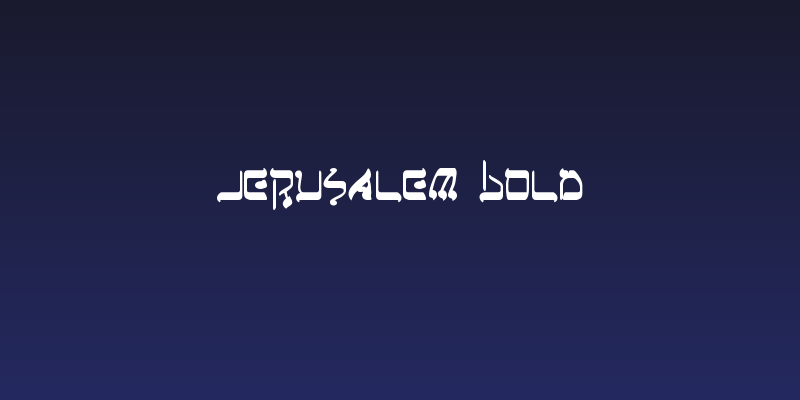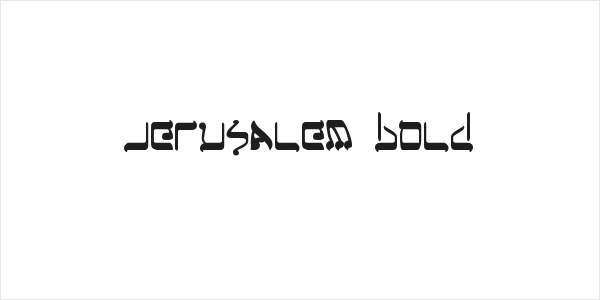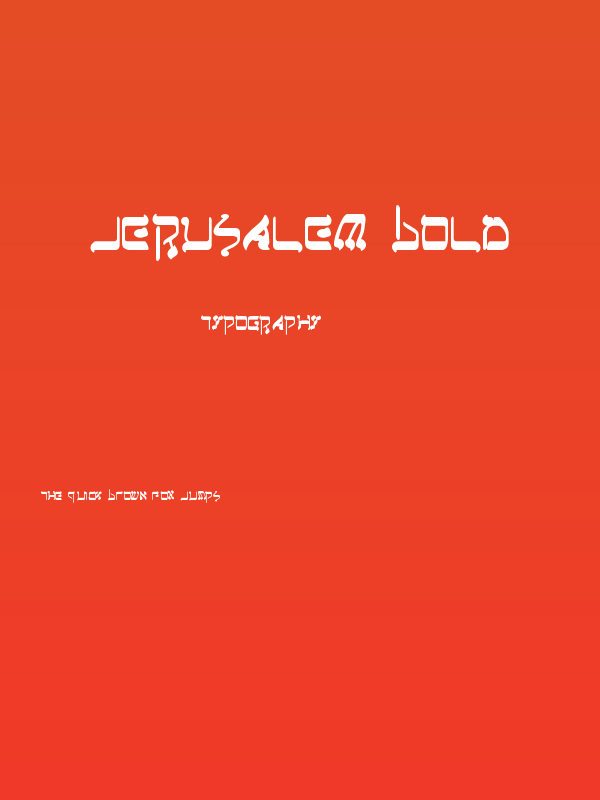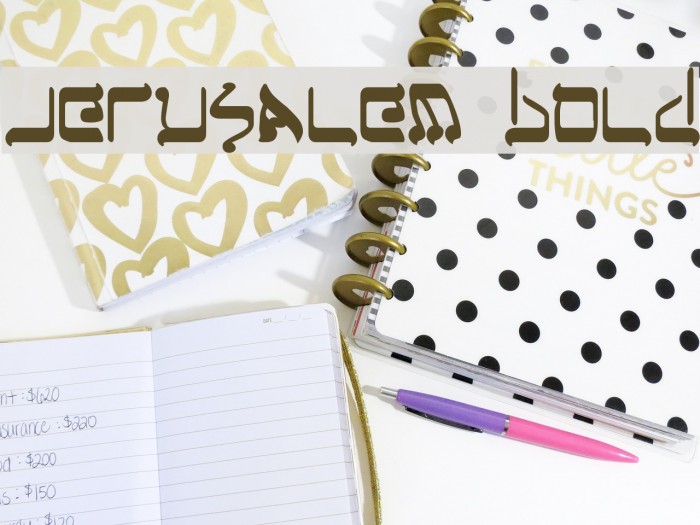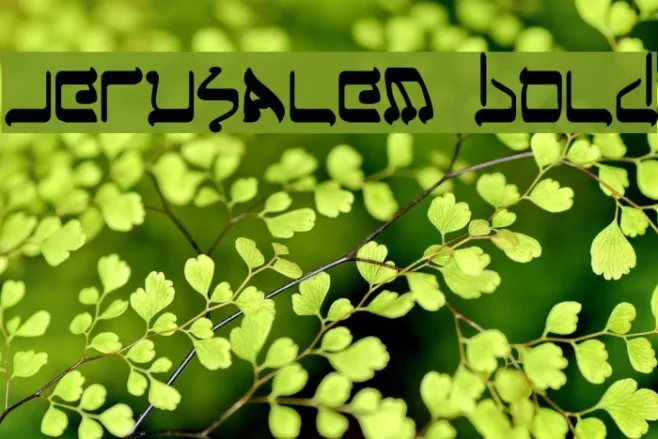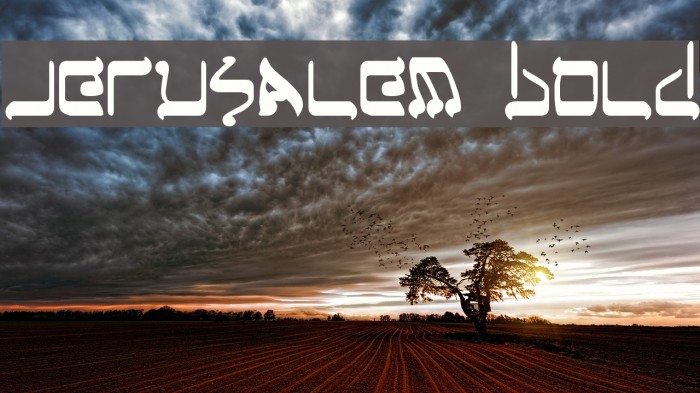
Jerusalem Bold Font
Jerusalem Bold Description
This font features a bold and striking design with a unique, decorative style. The characters are crafted with intricate details, giving them an almost calligraphic appearance. The bold strokes and angular shapes create a sense of movement and energy, making it stand out in any design. The uppercase and lowercase letters maintain a consistent style, with the uppercase being more pronounced. Numbers and special characters are equally bold and maintain the same decorative elements, ensuring a cohesive look across all text. The font's distinctiveness makes it ideal for projects that require a strong visual impact.
| Proposed Projects | Ideal for posters, logos, branding, and any project needing a strong visual impact. |